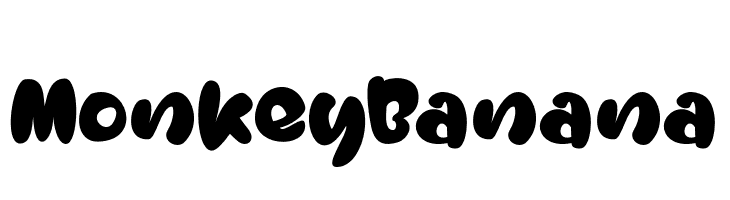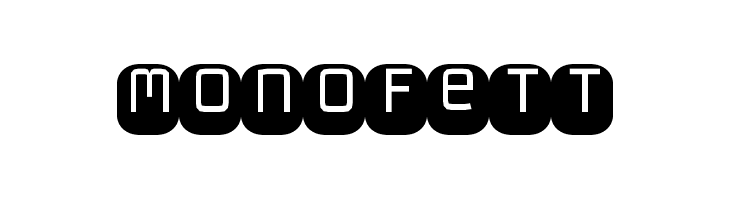
( deFharo - Fernando Haro - defharo.com )
A bold, modern, and geometric font with a condensed style.
A bold, decorative font with high contrast and intricate, gothic-inspired design.
A bold, playful font with a hand-drawn, whimsical style.
A playful, modern sans-serif font with rounded edges and balanced spacing.
( Fonts by www.paintblackeditions.org )
A bold, playful font with a hand-drawn, artistic style.
( - www.harrysdesign.com )
A dynamic, jagged font with a torn, edgy appearance.
( Fonts by Mans Greback - www.mawns.com )
A dynamic script font with intricate hatching and elegant curves.
( Zetafonts - www.zetafonts.com )
A modern, geometric sans-serif font with clean lines and balanced spacing.
( Fonts by t )
A bold, playful handwritten font with dynamic strokes.
A bold, condensed dot-based font with a modern and playful style.
A futuristic, italicized font with bold, angular letterforms.
A modern, narrow font with sleek, elegant characters.
( ADavis )
A playful, bold handwritten font with rounded, consistent strokes.
A bold, modern font with thick strokes and wide characters, perfect for impactful headlines.
( www.junkohanhero.com )
A bold, hand-drawn font with thick, brush-like strokes and an energetic style.
( Fonts by GLUK fonts )
A bold, modern font with thick, uniform strokes and a slightly condensed style.
A bold, geometric font with a modern, angular design.
A playful, hand-drawn font with bold, uneven strokes and a whimsical charm.
( Fonts by Maelle.K - Thomas Boucherie )
A playful, handwritten font with smooth, flowing lines and a casual style.
A bold, playful font with a tropical, hand-drawn style.
A bold, modern typeface with strong, impactful characters.
A modern, high-contrast font with elegant serifs and artistic flourishes.